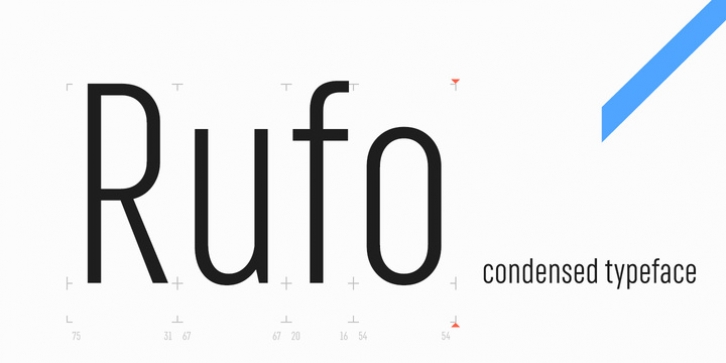
Rufo - condensed geometric sans serif with the closed forms. Contains 12 fonts. 6 regular and 6 italic. From thin to black. A rich palette gives full freedom for creativity and bright decisions.
Opentype: alternate numbers, oldstyle numbers, arrows, fractions and automatic fractions, case sensitive forms, superscript and subscript, numerators and denominators.
Support: cyrillic, cyrillic extended, latin, latin extended (Western European, Central European, South-East).